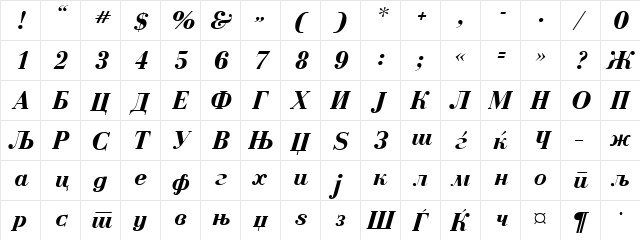
M_Bodoni Bold Italic
Design Context for M_Bodoni Typeface
M_Bodoni offers clean, dependable letterforms without strong stylistic allegiance, making it a practical choice for designers who need flexibility. The slanted form adds forward momentum and visual energy. Its bold stroke weight gives it real presence on the page.
Pro Tip: Use M_Bodoni for emphasis, pull quotes, and subheadings where its slanted energy can add rhythm to the layout.